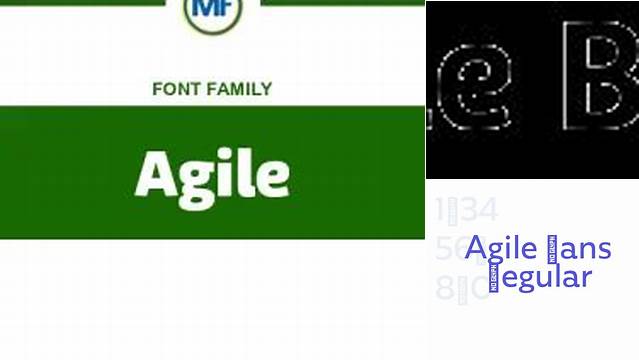
Hey guys, are you on the hunt for a powerful and eye-catching font? Well, look no further! I'm here to help you find some amazing agile bold fonts that you can download for free. Whether you're a designer, a marketer, or just someone who loves cool fonts, this is the place to be. We'll dive into the world of bold typography, explore some awesome freebies, and get you set up to make your designs pop. Let's get started, shall we? I'm super stoked to share some great resources with you all. Finding the perfect font can be a game-changer, and I'm here to make it easy and fun. You know, the right font can totally transform a project, making it more engaging and memorable. So, let's find those perfect agile bold fonts and get your creative juices flowing. Trust me, the impact of a well-chosen font is seriously underrated! Ready to level up your design game? Let's go!
H2: Unveiling the Power of Agile Bold Fonts
Agile bold fonts are like the superheroes of the font world. They command attention, they're easy to read, and they bring a certain strength and clarity to any design. Think about it: a strong, bold font can immediately grab a viewer's eye and convey a sense of confidence and professionalism. It's all about making a statement! These fonts are incredibly versatile and can be used in a variety of projects, from website headlines and posters to logos and social media graphics. They are especially effective when you want to highlight important information or create a strong visual impact. I mean, who doesn't love a font that makes your work look effortlessly cool? The beauty of agile bold fonts lies in their ability to balance readability with a striking aesthetic. They manage to be both functional and stylish, making them a go-to choice for designers looking to make a statement. Whether you're designing for print or digital media, the right bold font can significantly elevate your work. But what makes a font truly 'agile'? Well, it's not just about being bold. It's about the design, the personality, and the way it fits into your overall project. Finding the right font is like finding the perfect pair of shoes – it has to fit just right! Let's explore what makes agile bold fonts so special and how they can transform your designs. The right font can be the key to unlocking your creative potential. I'm super excited to share some of my favorite tips and resources with you all. Get ready to be inspired!
H3: Why Choose Bold Fonts? The Benefits
So, why exactly should you consider using agile bold fonts? Well, there are tons of benefits! First off, they enhance readability. In a world of visual overload, bold fonts cut through the noise and ensure your message gets across. Secondly, they create visual hierarchy. By using a bold font for headings and important text, you guide the viewer's eye and make it easy to understand the structure of your content. This is crucial for a good user experience. Think about the impact of a well-placed heading in a long article, or a clearly labeled button on a website. Bold fonts also project confidence and authority. They make your designs feel more professional and trustworthy. This is especially important for brands that want to establish themselves as leaders in their industry. Moreover, bold fonts are versatile. They can be used in a wide range of designs, from websites and apps to posters and presentations. Their adaptability makes them a valuable asset in any designer's toolkit. Another great thing about agile bold fonts is that they're memorable. They make your designs more unique and ensure that your message sticks with the audience. This is great for brand recognition! And let's not forget the aesthetic appeal. Bold fonts are simply beautiful! They add a touch of elegance and style to your designs, making them more visually appealing. Honestly, I'm a big fan of fonts that are both functional and stylish. Ultimately, choosing a bold font is a strategic move that can dramatically enhance your designs. It's about communicating your message effectively and making a lasting impression. I am so excited to share more with you all!
H2: Key Features to Look for in Agile Bold Fonts
When you're on the hunt for agile bold fonts, there are several key features to keep in mind. First, consider the weight and thickness. A true bold font will have a significant weight, making it stand out and grab attention. Make sure the boldness is right for your design. Too bold, and it might be overwhelming; not bold enough, and it might get lost. Next, think about the style. Do you want a clean and modern font, or something with a more vintage or artistic flair? The style of the font should complement the overall aesthetic of your project. Make sure it matches what you need! Then there is the x-height. The x-height refers to the height of the lowercase 'x' in the font. A larger x-height can make the font more readable, especially in smaller sizes. This is particularly important for text-heavy designs. Consider the character set. Does the font include all the characters you need? It should have all the letters, numbers, and special characters necessary for your project. Some fonts also include different language support or special glyphs. Always think about this before you download! Look at the kerning and spacing. Good kerning (the space between letters) and spacing are essential for readability. Bad kerning can make the font look cluttered and difficult to read. Always preview your text to see if it looks good! Consider the legibility. Is the font easy to read at different sizes and on different backgrounds? Always test the font to ensure it is legible. Test the font on different backgrounds and sizes to make sure it works! Always check these things. The best fonts are those that look good, and the best ones are also readable. These are the keys to a great font.
H3: Legibility and Readability: Making the Right Choice
Legibility and readability are super important when choosing agile bold fonts. Legibility refers to how easily individual characters can be distinguished, while readability refers to how easy it is to read a block of text. When you're choosing a bold font, you want one that is both legible and readable. Make sure that each character in the font is distinct, so you can easily tell them apart. You don't want characters that look too similar, as it can make reading difficult. The key is to ensure your font is readable! Font size is a big deal. Make sure the font is large enough to be easily read, especially on smaller screens. You can use the font in any way, but the size is essential. Don't forget about the font's spacing, either. Good spacing between letters and lines enhances readability. If the spacing is too tight, the text can appear cluttered; too loose, and the text can appear disjointed. Choose a font that works well with your specific project! The background can also affect readability. Make sure your font contrasts well with the background color, so the text is easy to see. Always test the font on different backgrounds. In the end, when choosing a font, make sure it's both legible and readable. I cannot stress this enough. The font's design, the size, and the spacing are all important for making sure your text is easy to read and understand. These simple tips can help you choose the best agile bold fonts for your design, ensuring your message is clear and easy to understand. I am more than happy to share this with all of you!
H2: License Types and Usage Rights for Free Fonts
When you download a agile bold font for free, it's crucial to understand the license. The license dictates how you can use the font. There are a few main types of licenses you should be aware of. The most common one is the SIL Open Font License (OFL). This license allows you to use the font for both personal and commercial projects, and you can even modify the font. Another common license is the Open Font License, which is a permissive license that allows for broad usage. Then there's the Creative Commons licenses, which come in various forms. Some Creative Commons licenses allow for commercial use, while others require attribution. This means you must give credit to the font designer. It is essential that you check the license for your project's intended use. The use of a font without understanding its license can lead to legal trouble. It is always better to be safe than sorry! Always read the fine print! Some licenses may have restrictions, such as not allowing you to sell the font itself or use it in certain types of projects. Be aware of these details. Always look for a license that suits your project's needs. Understanding the license terms ensures you stay compliant and avoid any potential copyright issues. Always respect the designers' terms. The license is more than just a piece of paper; it's about protecting the designer's work. It's about their effort. Always double-check the license terms to make sure everything aligns with your project's goals. I know this is important, so I am glad to share it with all of you.
H3: Understanding Different Font Licenses
So, let's break down the different font licenses you're likely to encounter when downloading free agile bold fonts. First, we have the SIL Open Font License (OFL). This is one of the most common licenses. It's a really friendly license that allows you to use the font for both personal and commercial projects. You can even modify the font and distribute it. This is a great option for maximum flexibility. Next, we have the Apache License 2.0. It’s another permissive license similar to the OFL. It allows for free use, modification, and distribution. However, it requires you to include the original copyright notice in any modified versions. Then there's the Creative Commons (CC) licenses. These come in several forms, with varying terms. Some CC licenses allow for commercial use, while others require attribution. For example, CC BY (Attribution) means you must credit the font designer. CC BY-SA (Attribution-ShareAlike) means you must credit the designer and share any modified versions under the same license. There are other licenses, like the MIT License, which is also very permissive, allowing for a wide range of uses. Commercial Free licenses allow for commercial use but might have limitations, like how many times you can use the font. Some fonts might have a no-commercial use license. Always read the details. Understanding the different license types helps you use the font legally and respectfully. Before downloading any font, always carefully check the license. It's always best to be informed and safe. These simple tips will help you navigate the world of font licenses with confidence. I am more than glad to share this with you all!